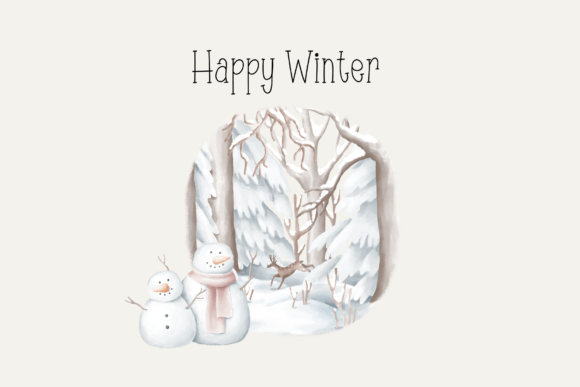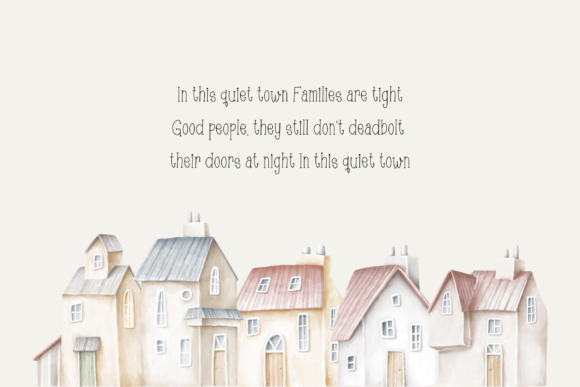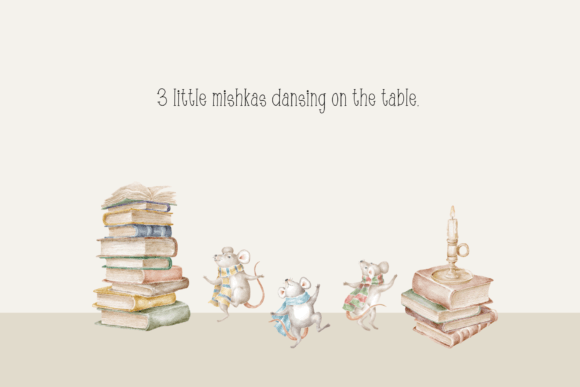
Unleashing Your Creativity: The Magic of Handwritten Fonts
Have you ever found yourself scribbling down ideas in a worn-out notebook, the pen gliding effortlessly across the page as your imagination runs wild? That’s the moment when creativity truly comes alive. The scratch of the pen on paper, the imperfections, and the uniqueness – it’s a feeling that’s hard to replicate with digital tools.
That’s where Crazy Pisha Font comes in – a beautiful, handwritten font designed to bring a touch of personality to your digital creations. Whether it’s a logo, a quote, or a simple note, Crazy Pisha Font adds a human touch that’s missing from many digital fonts. For designers, it’s a valuable asset that can help them stand out and connect with their audience on a deeper level.
Crazy Pisha Font Key Features
- Unique Characteristics: Crazy Pisha Font features a unique blend of whimsical and playful elements, making it ideal for creating eye-catching and memorable designs.
- Font Styles: Crazy Pisha Font comes in 3 different font styles: Regular, Italic, and Bold, providing designers with flexibility and versatility in their designs.
Crazy Pisha Font Review
First off, let’s dive into what works well with this font. ✨ The quirky, handwritten feel is perfect for adding a touch of whimsy to designs. The font’s unevenness and imperfections give it a unique, handcrafted look that’s both charming and eye-catching. Additionally, the font’s wide range of weights and styles makes it incredibly versatile, allowing designers to use it for everything from bold headlines to delicate body text.
On the other hand, there are a few limitations to consider. ⚠️ For one, the font can be quite difficult to read at smaller sizes, particularly in digital formats. This may make it less suitable for text-heavy designs or publications that require a high level of legibility. Additionally, the font’s inconsistent spacing and kerning can sometimes make it look a bit cluttered or overwhelming.
Overall, I think Crazy Pisha Font is a solid choice for designers looking to add some personality to their work. While it may have its limitations, the font’s unique charm and versatility make it a great option for projects that require a bit of flair.
- Quirky, handwritten feel
- Wide range of weights and styles
- Perfect for bold headlines and delicate body text
- May be difficult to read at smaller sizes
- Can appear cluttered or overwhelming at times
The Crazy Pisha Font is ideal for use in:
- Emphasis text in brochures and flyers
- Decorative text in wedding invitations and party